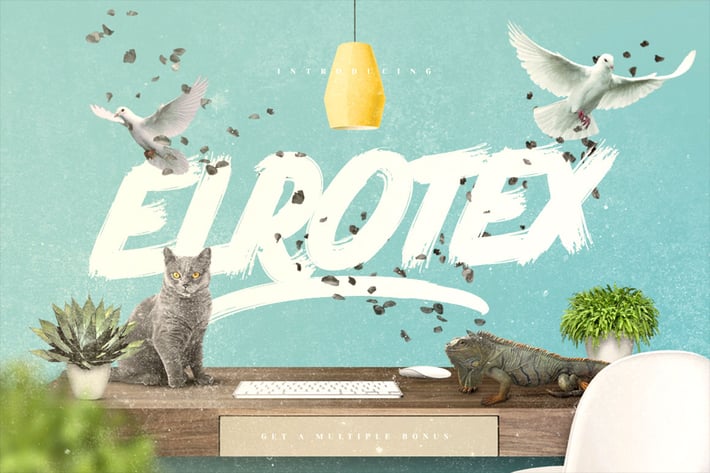
Elrotex Brush Font
Thanks for watching "Elrotex Brush Font". Brush Up is the cool handpainted typeface you are looking for. Give your designs an brush handcrafted feel. "Elrotex Brush Font" is perfectly suited to stationery, logos, t-shirt, paper, print design, website header, photo frame, flyer, music cover, poster, image slider and much more.